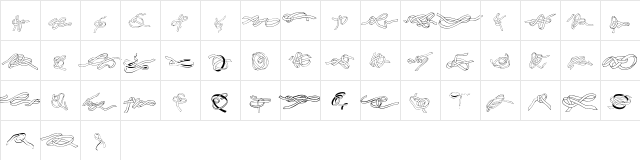
Zoeknots Regular
Design Context for Zoeknots Typeface
Zoeknots is a composed and adaptable typeface that performs quietly and consistently across a wide range of design contexts.